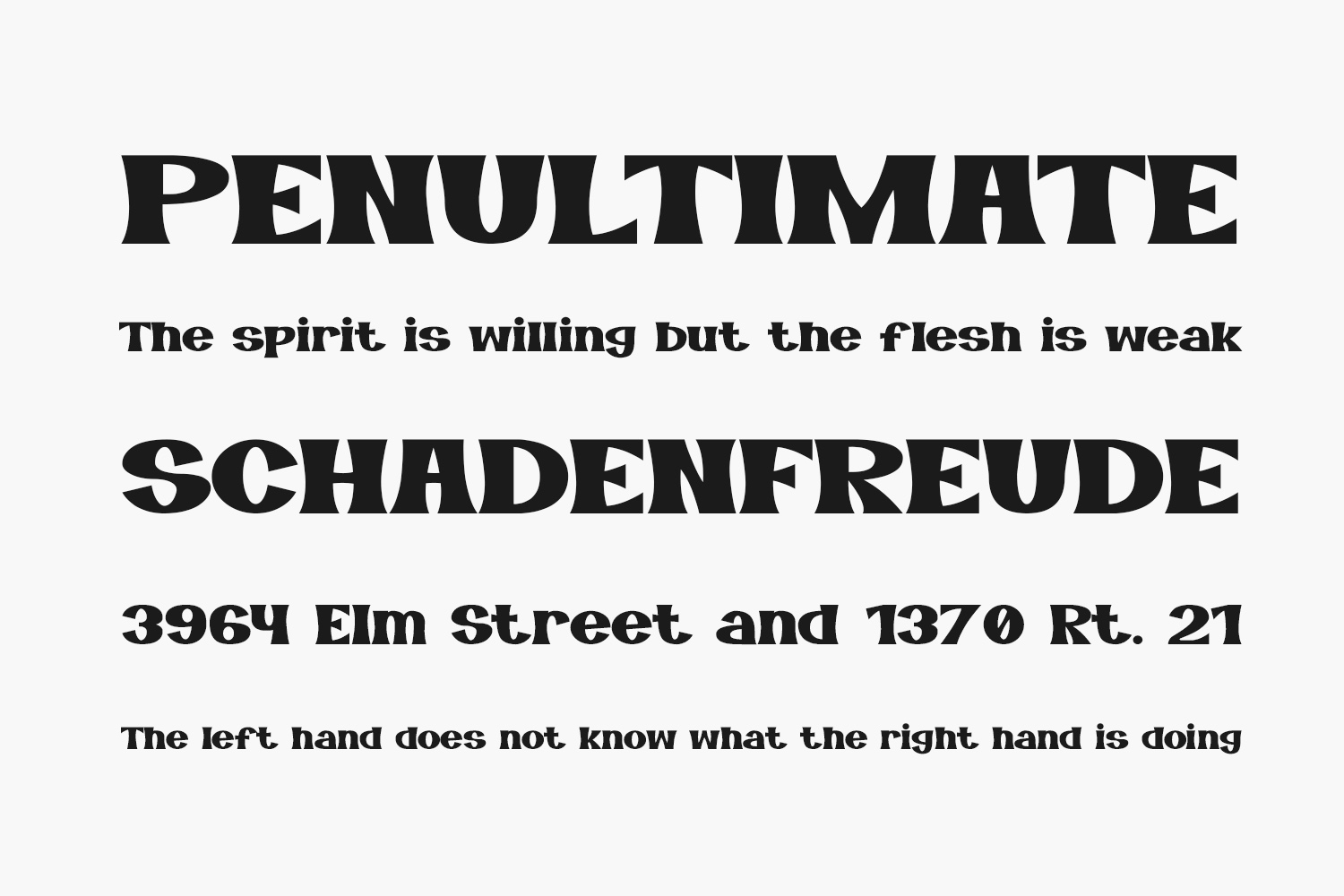
Meet Impactful Free Font—an exquisite, bold sans-serif font designed to amplify any text with a touch of formality. Ideal for conveying mature, provocative, and motivational themes in books, economic posters, stationery, school supplies, YouTube covers, thumbnails, social media page covers, and more. Impactful Free Font is free for personal use only. Please purchase the full version for commercial use.